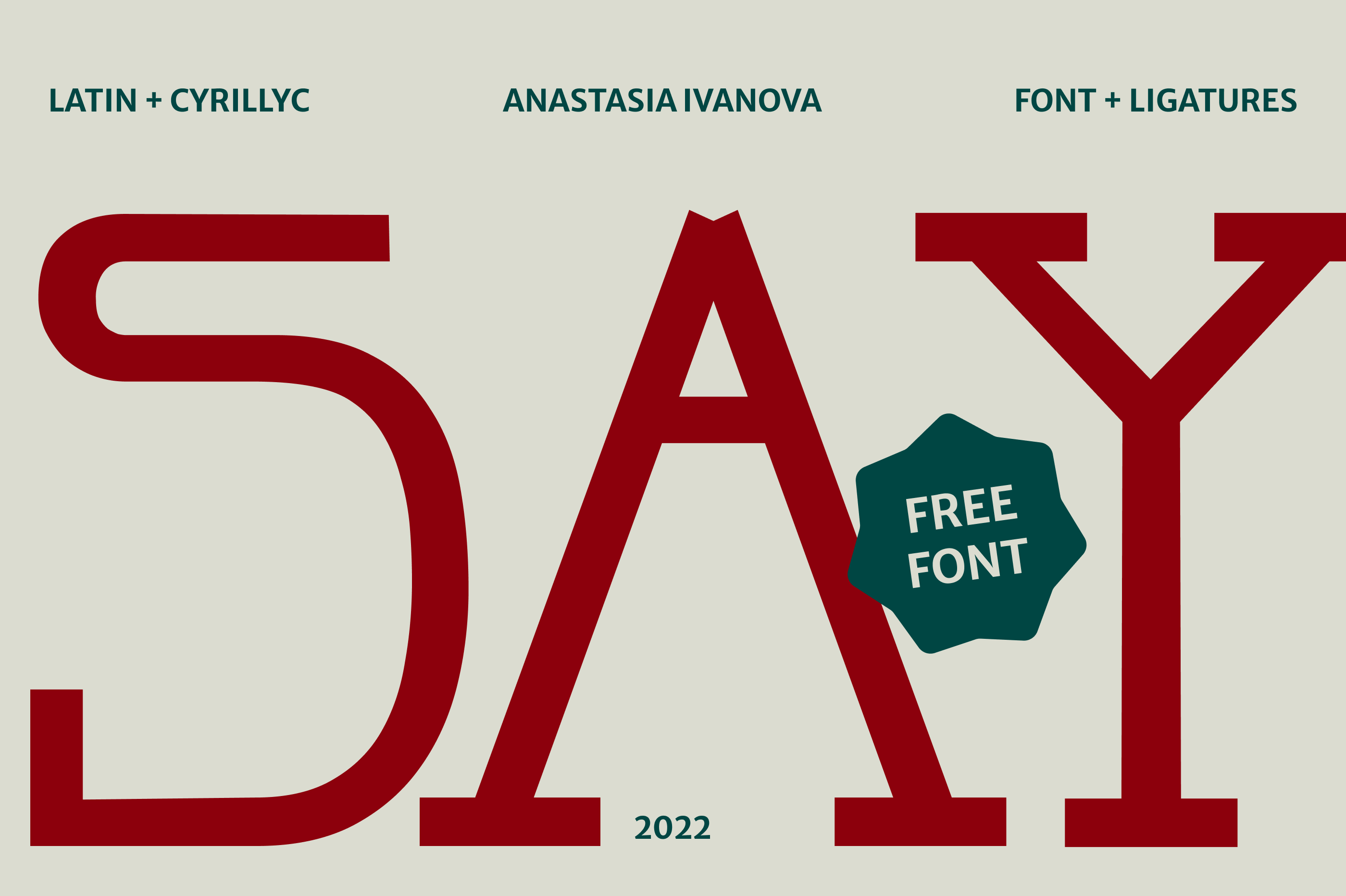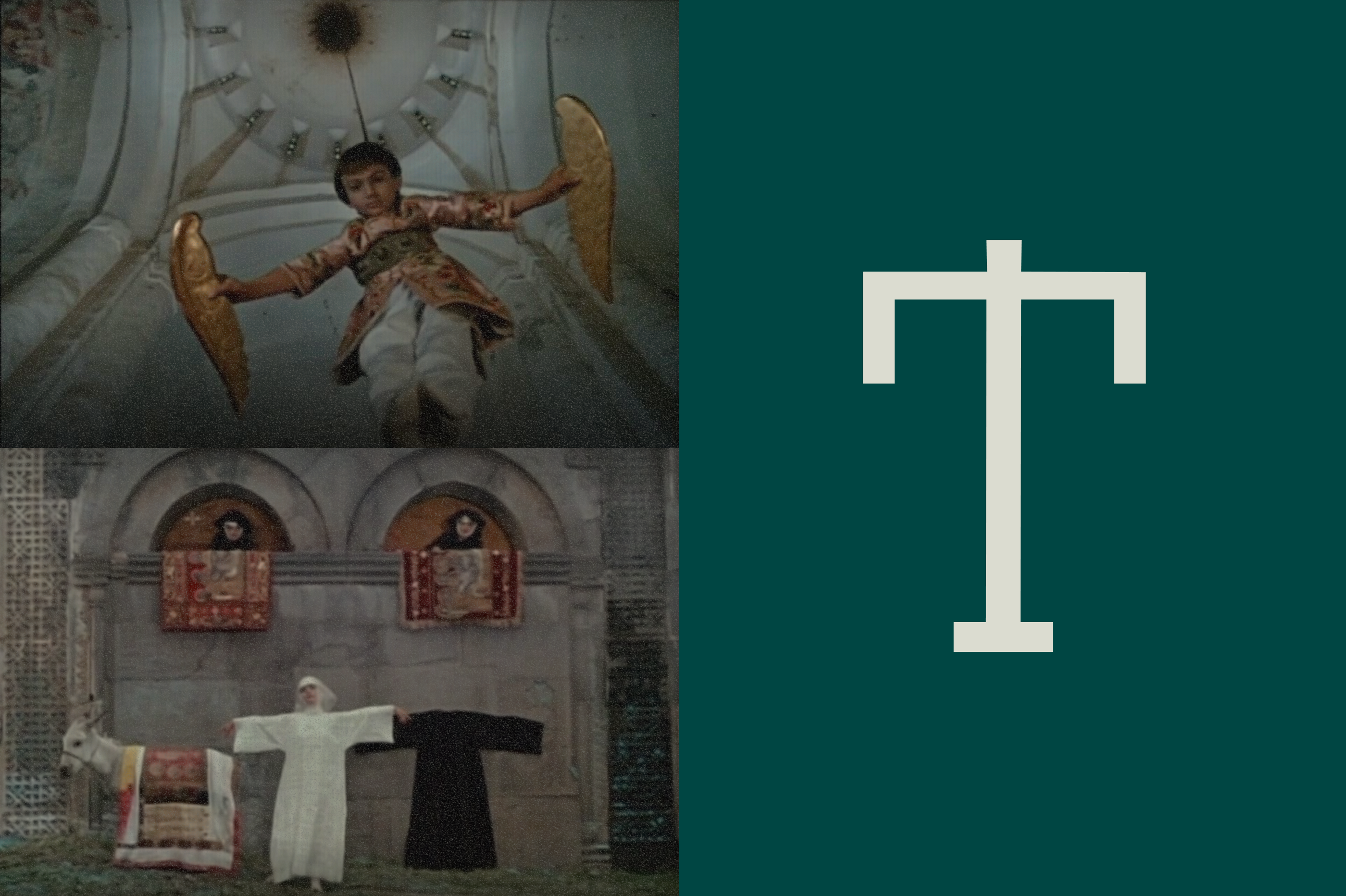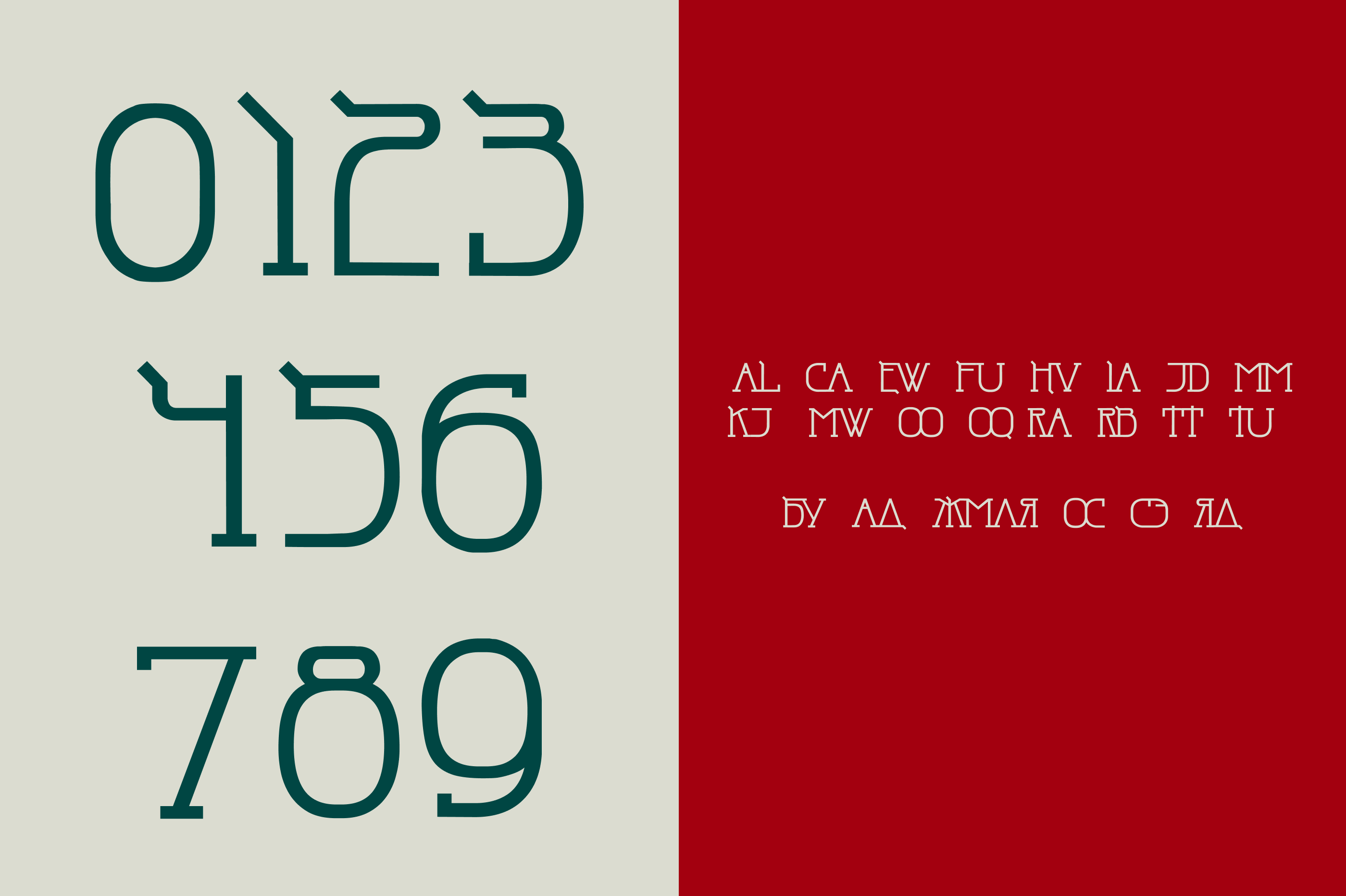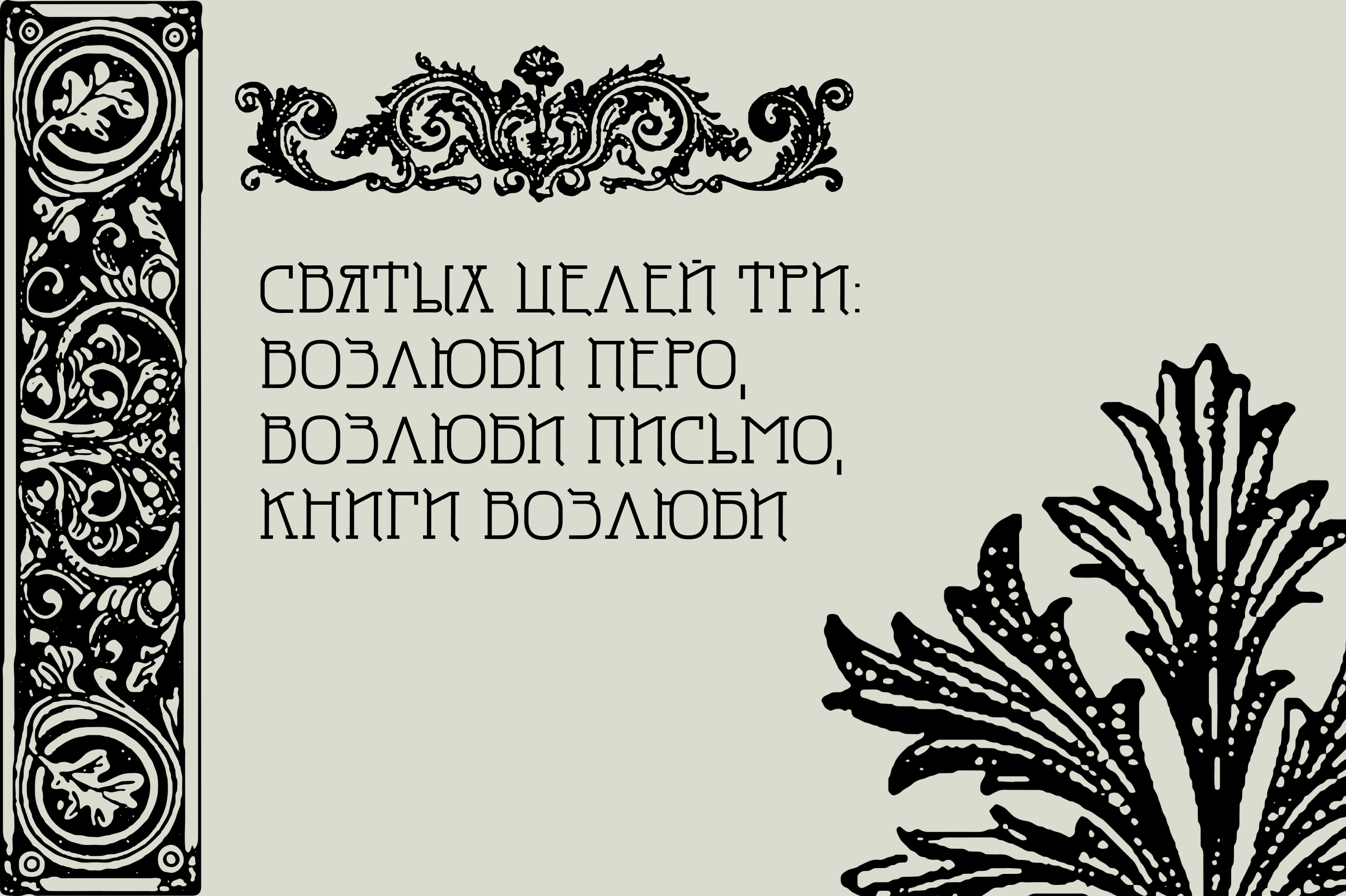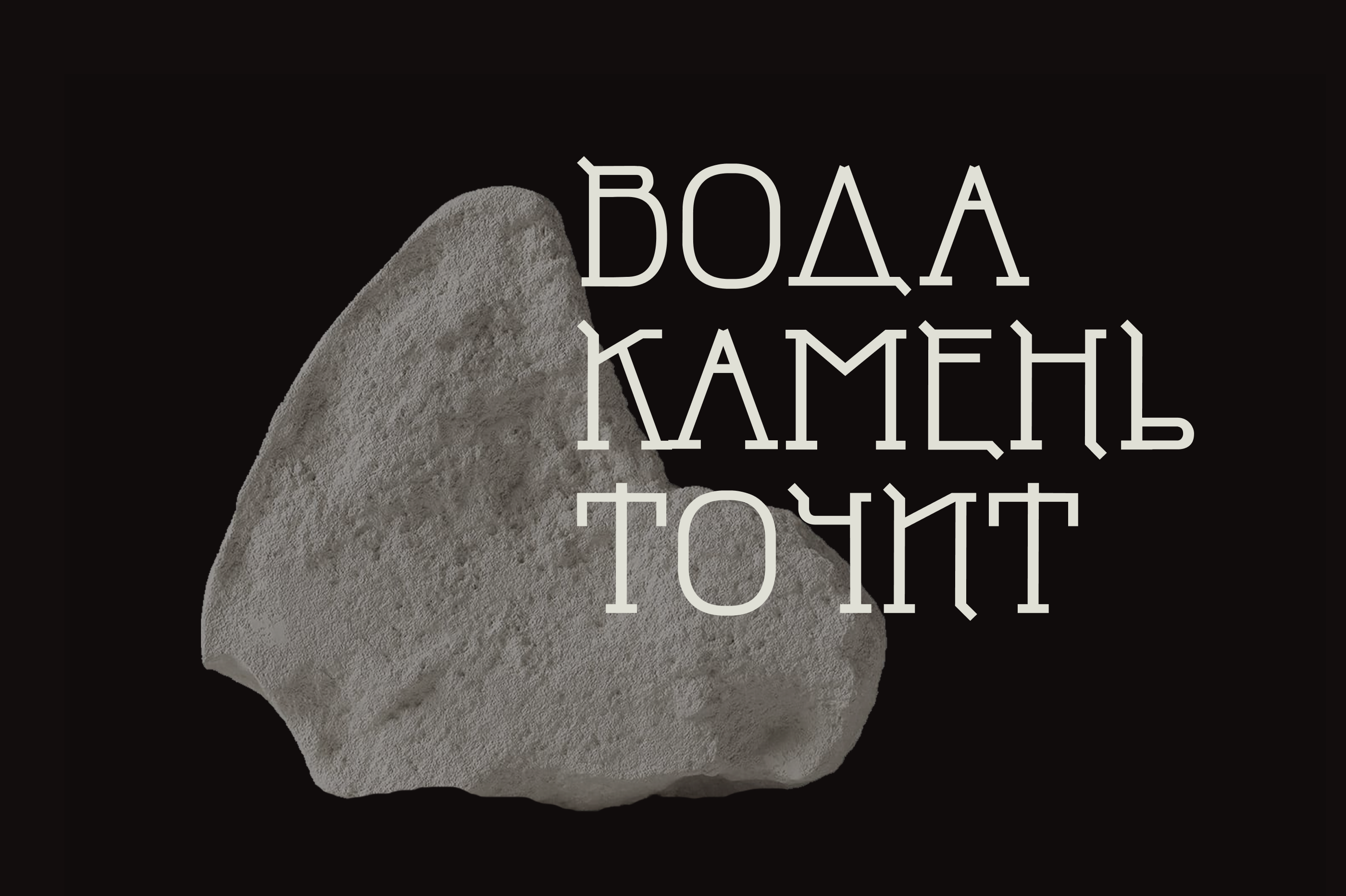
Parajanov (Free Font)
This display typeface is inspired by the visionary films of Sergei Parajanov. Each letter is crafted from symbols, patterns, and visual motifs found in his works, reflecting his rich storytelling, surreal compositions, and poetic imagery. The font embodies the essence of his cinematic language—ornamental, expressive, and deeply symbolic.